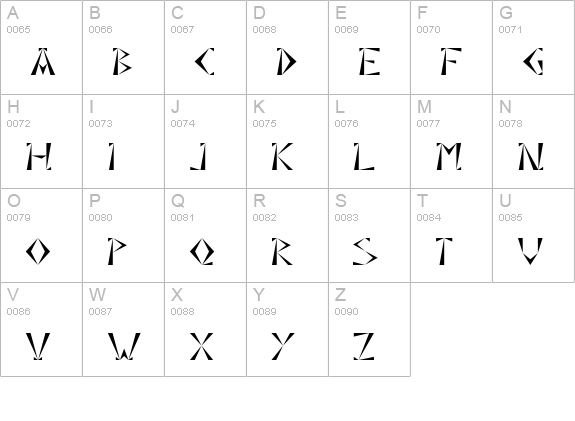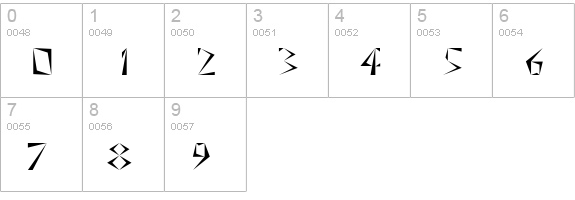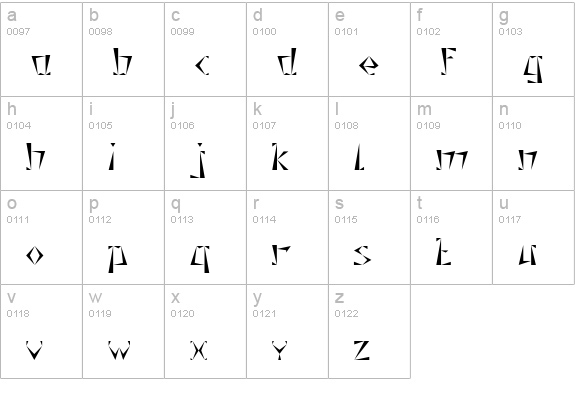
Grecques Tryout font is a stunning display typeface that exudes elegance and sophistication. With its intricate details and unique design elements inspired by ancient Greek architecture, this font is perfect for adding a touch of classic beauty to your projects. The clean lines and sharp angles of Grecques Tryout font make it a versatile choice for a wide range of design applications, from branding to editorial design. What makes Grecques Tryout font even more appealing is that it is available for free download at FontsMarket.com. This means that you can easily access this exquisite font and use it in your projects without any cost. Whether you are a professional designer looking for a high-quality typeface or a hobbyist exploring new fonts, Grecques Tryout font is a must-have addition to your font collection. Download Grecques Tryout font for free today at FontsMarket.com and elevate your designs with its timeless beauty and unique style.